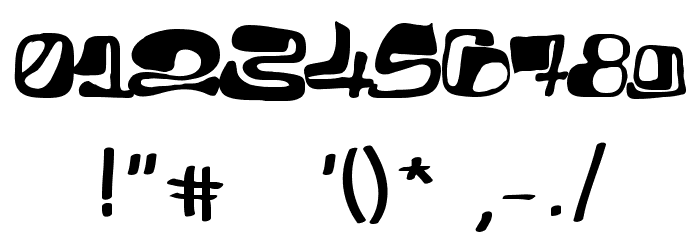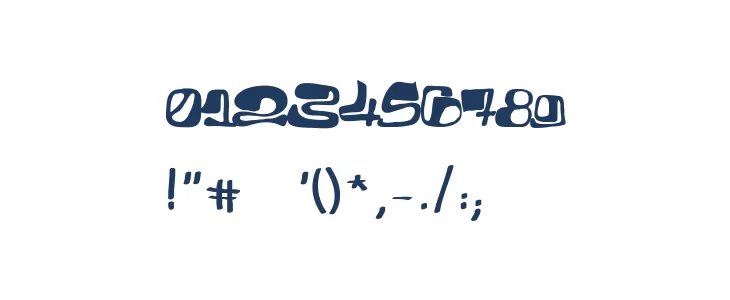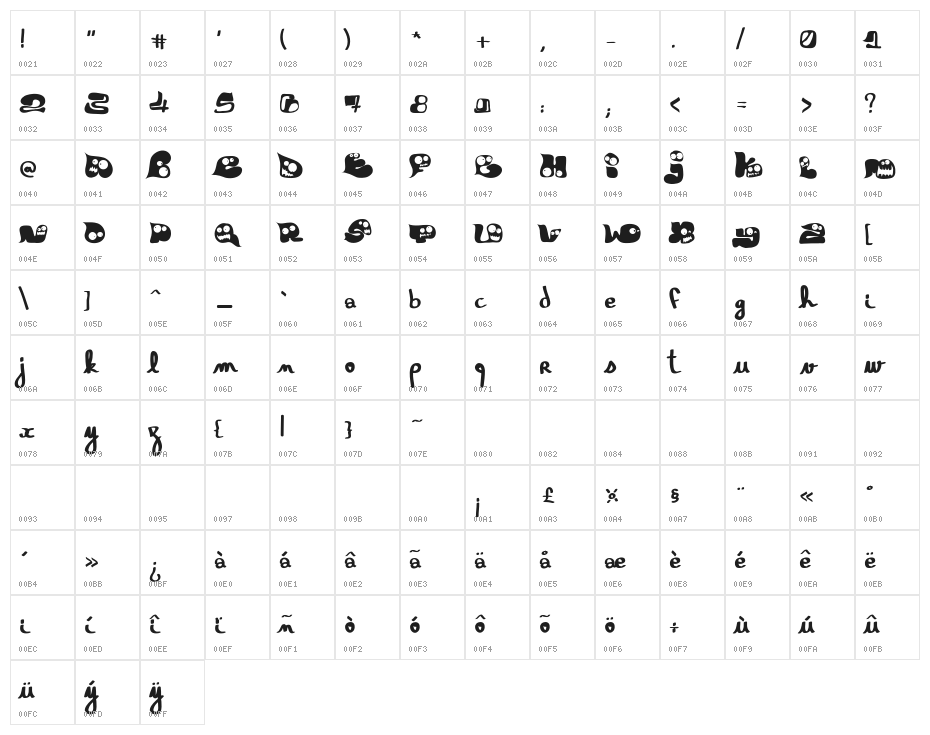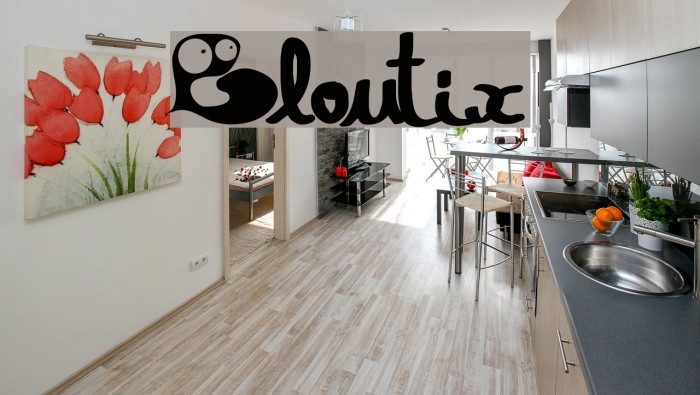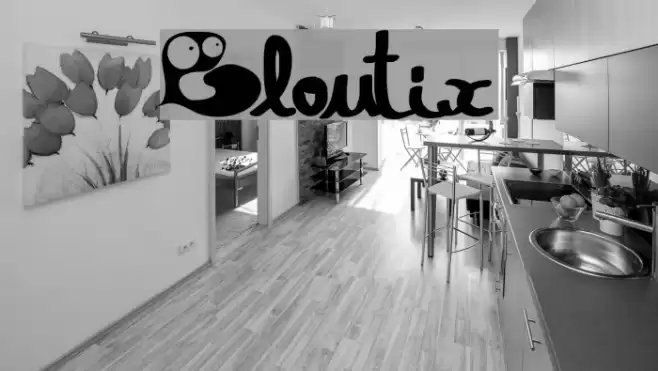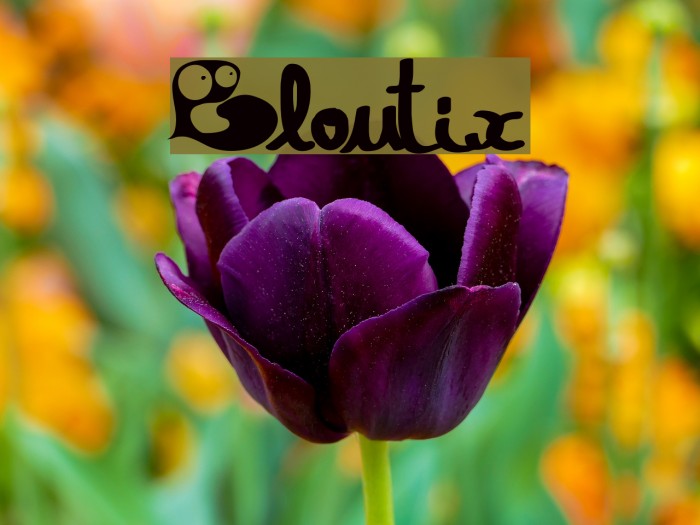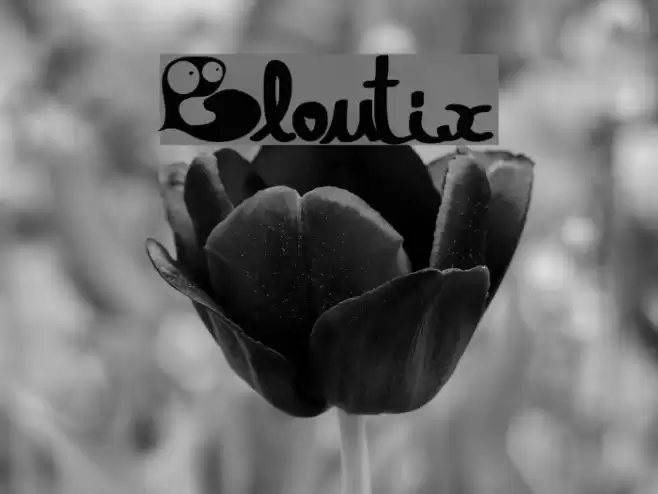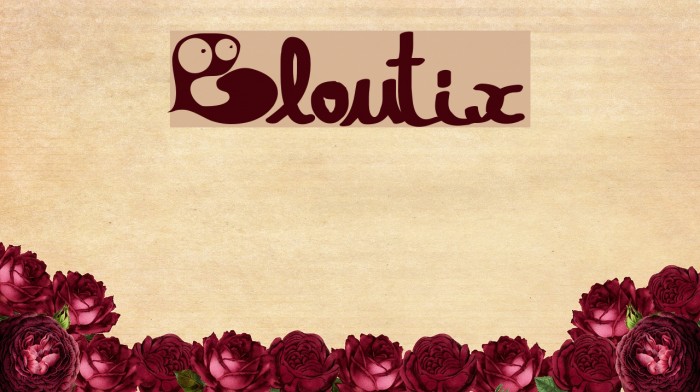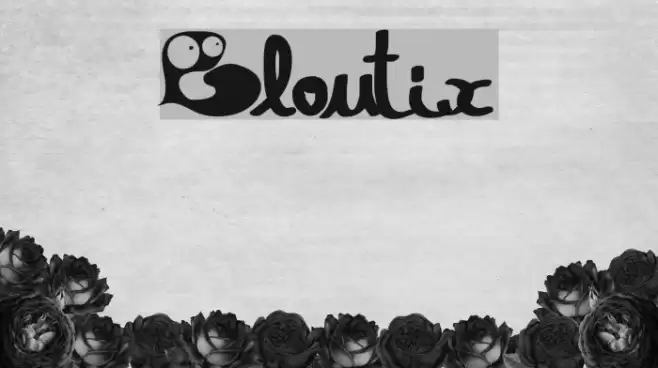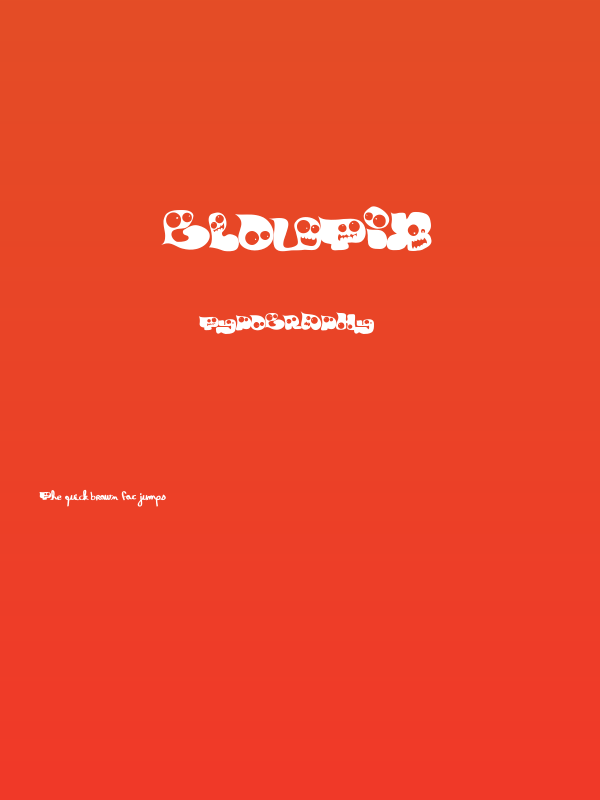
Gloutix Font
Gloutix Description
This playful and quirky font features uppercase letters with a unique, cartoonish style, incorporating eyes and teeth into the design, giving each letter a character-like appearance. The lowercase letters are more fluid and handwritten, providing a nice contrast to the bold and decorative uppercase. The numbers maintain the whimsical theme with exaggerated curves and playful forms. Special characters are included, matching the overall fun and lively aesthetic. This font is perfect for projects that require a sense of humor and creativity, such as children's books, comic strips, or playful branding.
Overall StylePlayful, Quirky, Cartoonish
Proposed ProjectsIdeal for children's books, comic strips, playful branding, and creative posters.